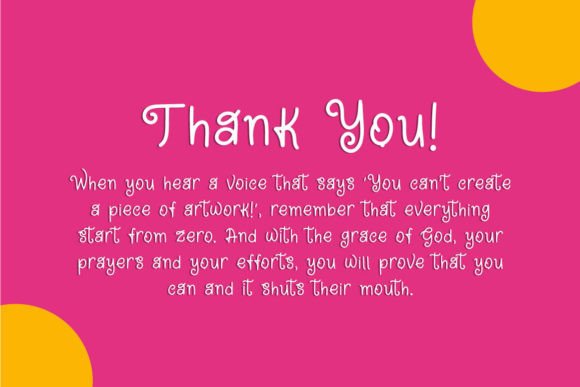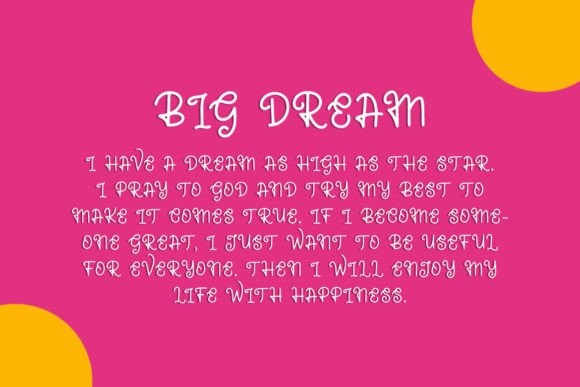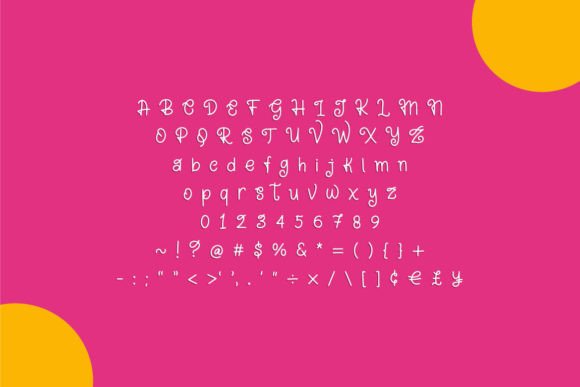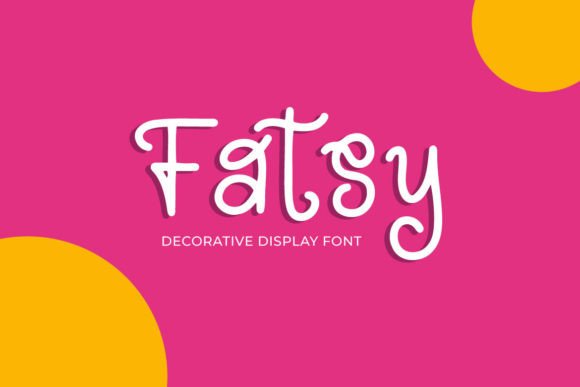
Fatsy Font: The Ultimate Cute and Girly Handwritten Font for Your Designs
Are you a designer or crafter looking for a font that can add a playful touch to your creations? Look no further than Fatsy Font, a cute and girly handwritten font that’s perfect for a wide range of design projects. In this article, we’ll take a closer look at Fatsy Font, its features, and how you can use it to elevate your designs.
What is Fatsy Font?
Fatsy Font is a beautiful, handwritten font that’s designed to bring a friendly and cheerful vibe to your designs. Its cute and girly style makes it perfect for creating designs that require a playful accent, such as party invitations, greeting cards, and social media graphics.
Key Features of Fatsy Font
So, what makes Fatsy Font so special? Here are some of its key features:
• Cute and Girly Style: Fatsy Font has a distinctly feminine and playful style that’s perfect for designs that require a touch of sweetness.
• Handwritten Look: Fatsy Font has a natural, handwritten look that’s perfect for creating designs that feel personal and approachable.
• Friendliness and Cheerfulness: Fatsy Font exudes a friendly and cheerful vibe that’s perfect for designs that need to make a positive impact.
• Playful Accent: Fatsy Font is perfect for adding a playful accent to your designs, making it ideal for projects that require a bit of whimsy.
Use Cases for Fatsy Font
Fatsy Font is a versatile font that can be used for a wide range of design projects. Here are some use cases to get you started:
• Party Invitations: Fatsy Font is perfect for creating cute and playful party invitations that will delight kids and adults alike.
• Greeting Cards: Fatsy Font is ideal for creating greeting cards that need a personal touch, such as birthday cards, thank you cards, and get well cards.
• Social Media Graphics: Fatsy Font can add a playful touch to your social media graphics, making them more engaging and shareable.
• Crafting Projects: Fatsy Font is perfect for crafters who want to add a personal touch to their projects, such as scrapbooking, journaling, and card making.
Tips for Using Fatsy Font
Here are some tips for getting the most out of Fatsy Font:
• Use it with Bright Colors: Fatsy Font looks amazing with bright, playful colors that match its cheerful vibe.
• Experiment with Different Sizes: Fatsy Font can be used at different sizes to create visual interest and hierarchy in your designs.
• Combine it with Other Fonts: Fatsy Font can be paired with other fonts to create a unique and interesting contrast.
Fatsy Font is a beautiful, handwritten font that’s perfect for designers and crafters who want to add a playful touch to their creations. Its cute and girly style, friendly and cheerful vibe, and versatility make it an ideal choice for a wide range of design projects. Whether you’re creating party invitations, greeting cards, or social media graphics, Fatsy Font is sure to bring a smile to your audience’s faces.